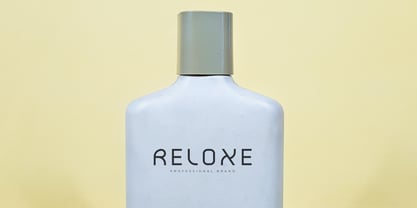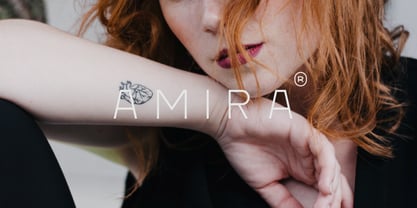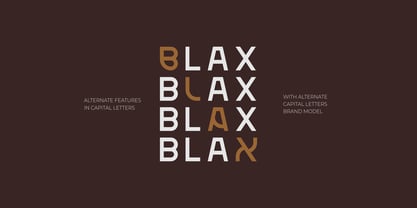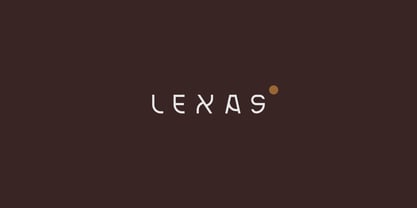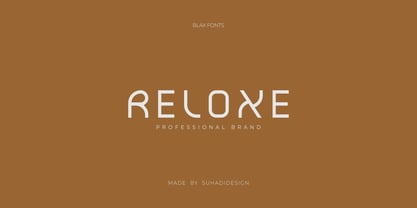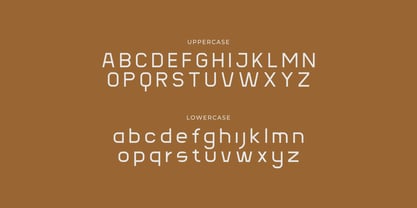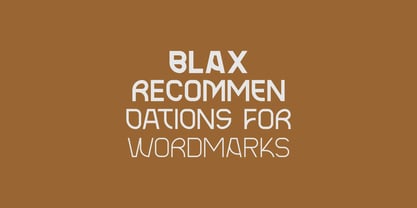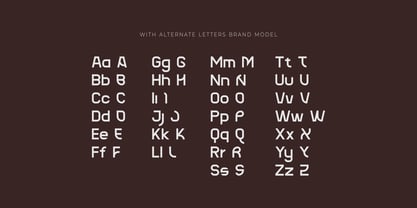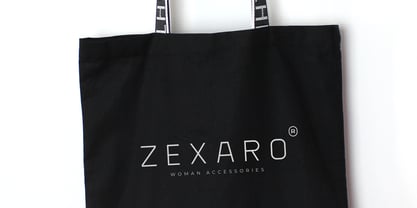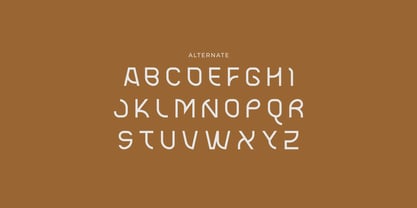
Blax Medium
The Blax Medium Font Family was designed by ahmad suhadi and published by suhadidesign. Blax Medium contains 4 styles and family package options.
Blax - Sans Serif Alternate Font Family
The latest stylish modern font has arrived which is a font that many ladies and gentlemen are looking at. Namely the Blax font. The Blax font is a sans serif font with a modern typeface. With a modern model and equipped with alternate features, it has become a market favorite. We keep this font looking elegant, classy, ​​stylish. Blax Font is a great choice for brands, logos,cosmetics, beauty, wordmarks, magazines, designs, books, publications, branding, brand names, business cards, social media, classy design, newspapers, branding, beauty and other projects. Blax Font is here to improve the quality of your designs.
Feature:
• Uppercase • Lowercase • 4 Families (Light, Medium, Semi Bold, Bold) • Alternate Uppercase • Multilingual Support • Numbers • Punctuation